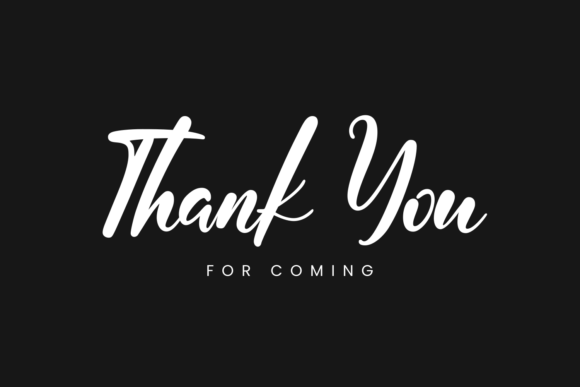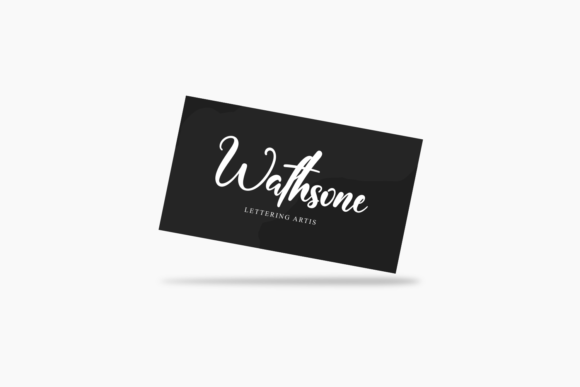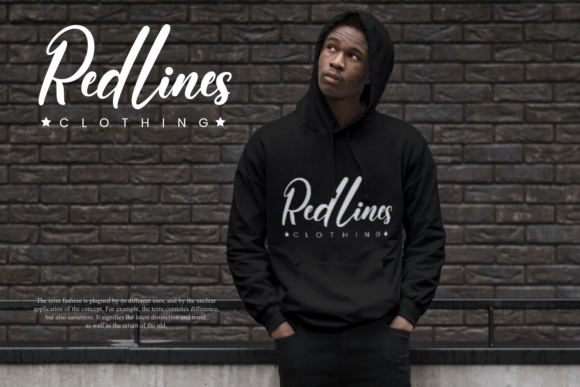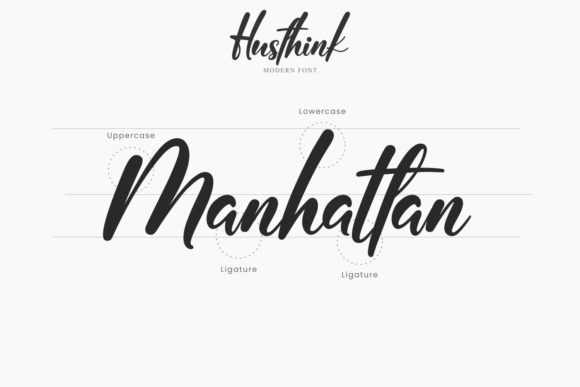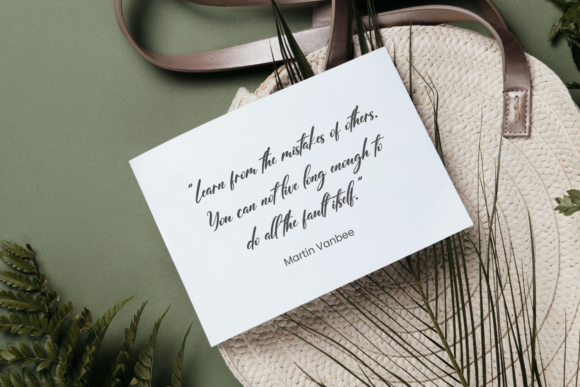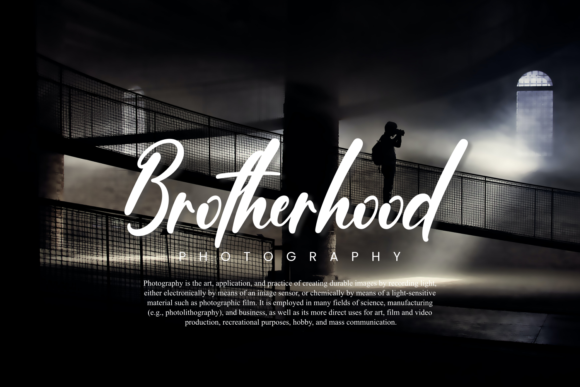
About Husthink Font
Husthink is delicate script font that exudes elegance and class. This font was particularly crafted for those who need a beautiful and refreshing look to their designs.